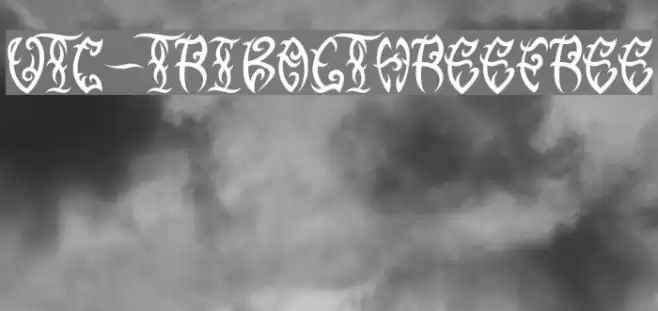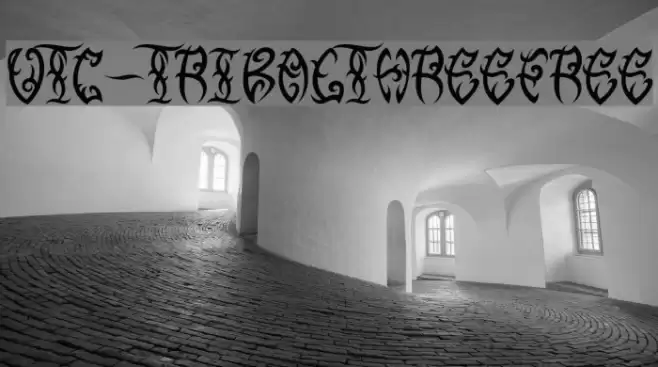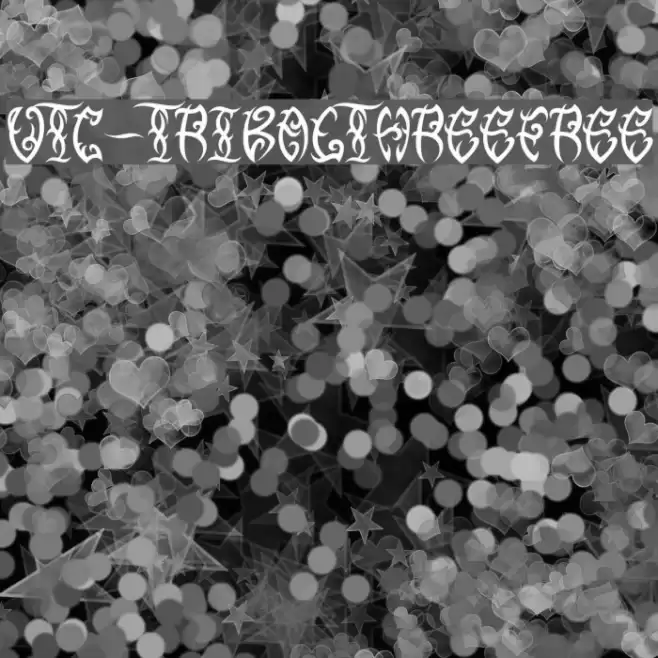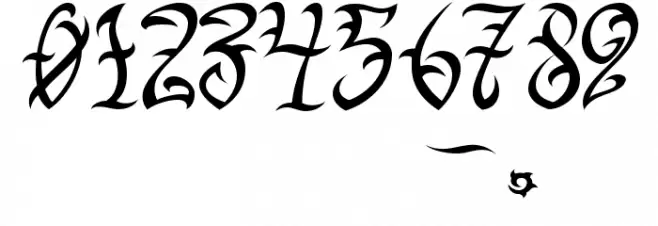
VTC-TribalThreeFree Font
VTC-TribalThreeFree Description
This font features an intricate and bold tribal design, characterized by sharp, angular lines and decorative elements that give it a unique and striking appearance. The letters are highly stylized, with each character incorporating elaborate curves and pointed edges, reminiscent of traditional tribal tattoos. The font maintains a consistent thickness throughout, providing a balanced and cohesive look. It is designed to capture attention and convey a sense of strength and individuality, making it ideal for projects that require a bold and artistic touch.
A bold, tribal-inspired font with intricate, angular designs from Uncategorized fonts.
- Proposed Projects: Ideal for tattoo designs, album covers, posters, and branding that requires a bold, artistic flair.